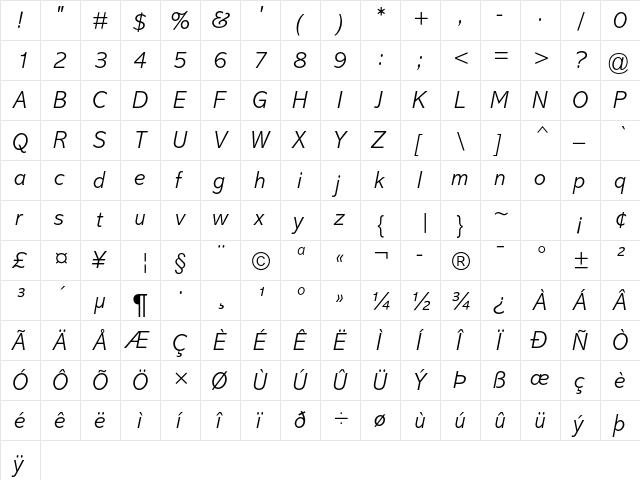
Abadi MT Std Light Italic
Design Context for Abadi MT Std Typeface
Abadi MT Std offers clean, dependable letterforms without strong stylistic allegiance, making it a practical choice for designers who need flexibility. The slanted form adds forward momentum and visual energy. The delicate stroke weight brings airiness and refinement to layouts.
Pro Tip: Try Abadi MT Std for annotation and caption copy alongside an upright companion — the contrast in angle creates a dynamic but ordered typographic system.